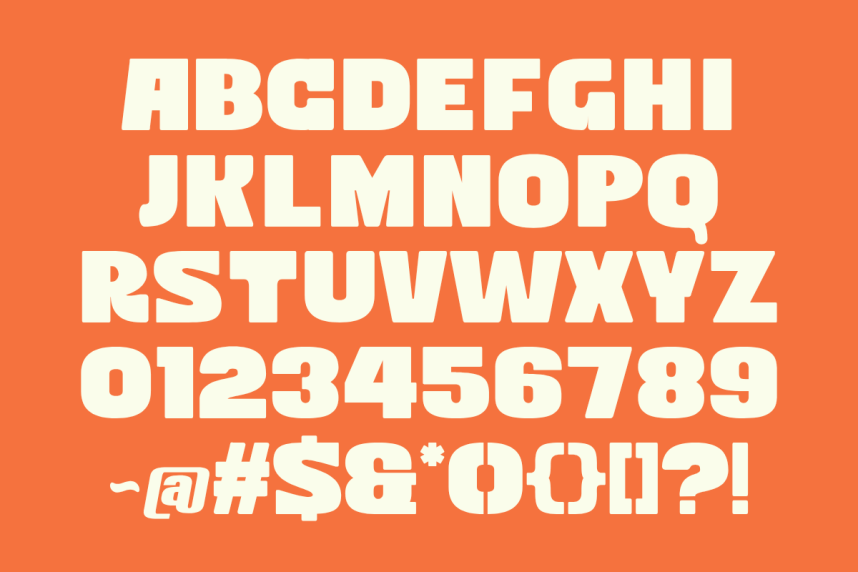
Side – Retro Bold Heavy Sans Serif Font
Side – Retro Bold Heavy Sans Serif Font, an ultra-bold heavy retro sans serif font engineered for creators who want their headlines to pop with a punchy, high-energy charm. Meticulously structured with a massive display weight, solid geometric baselines, and softly rounded corners, this versatile font brings an instant blend of vintage street culture and clean modern commercial professionalism to any creative canvas.
Whether you are an apparel designer launching a fresh streetwear collection, a graphic artist establishing a bold lifestyle brand, or a high-volume print-on-demand seller optimizing listings for search engine conversions, Side delivers unmatched readability and outstanding shelf appeal. For the crafting community and DIY enthusiasts, every single glyph has been technically polished and vector-optimized to ensure a smooth, effortless cutting and weeding experience on digital cutting machines like Cricut and Silhouette. Bring the powerful, chunky, and timeless aesthetic of Side into your commercial design toolkit today!